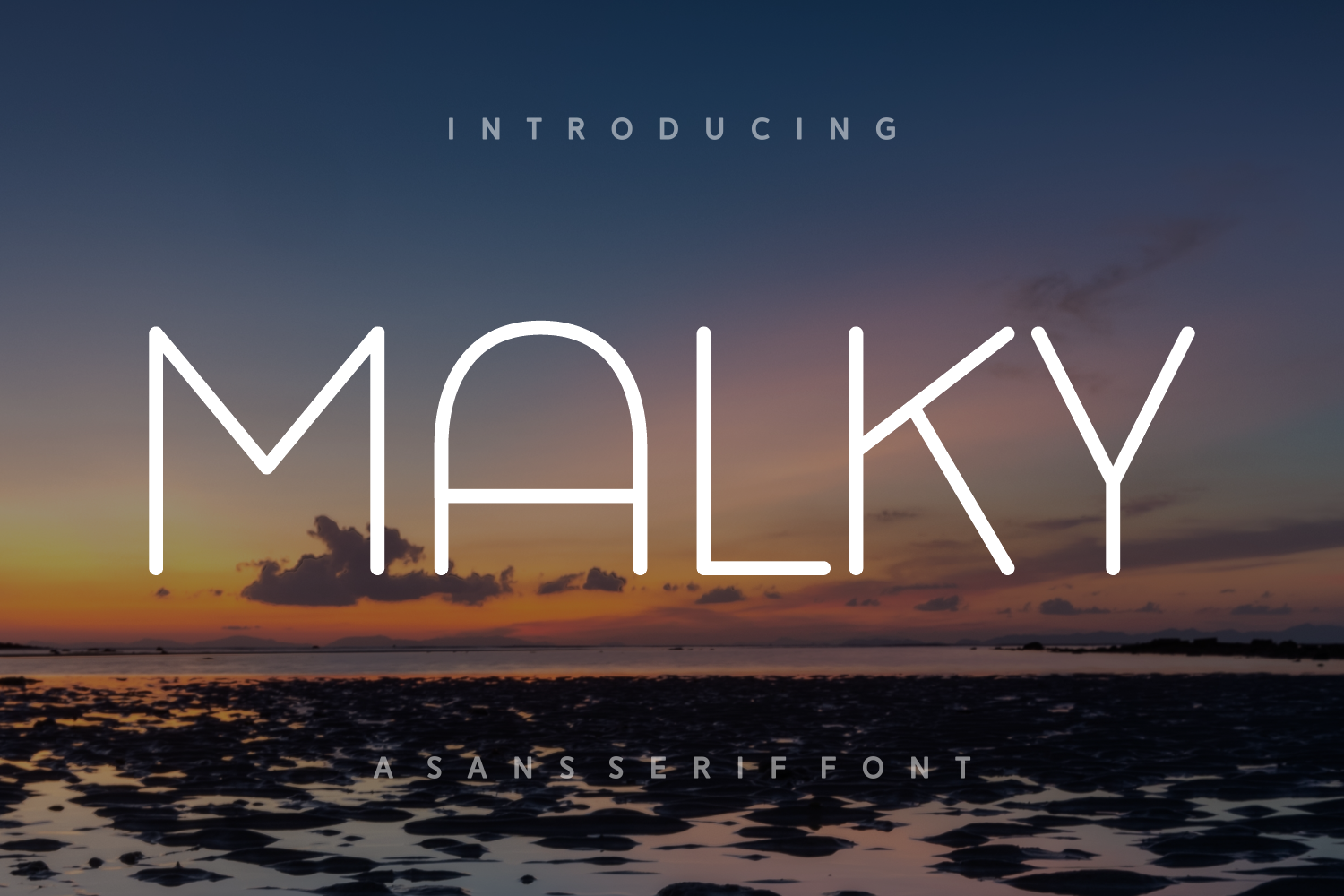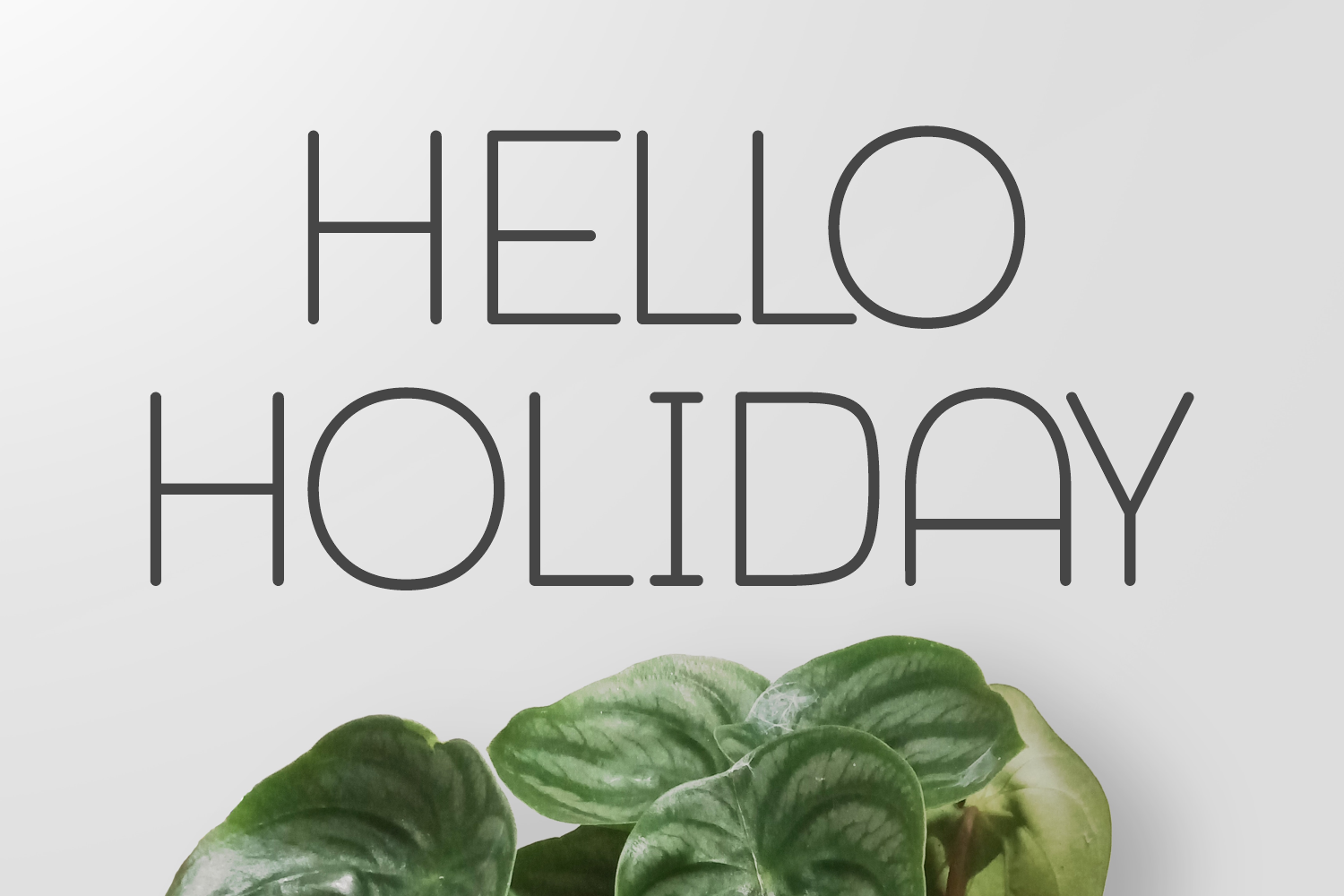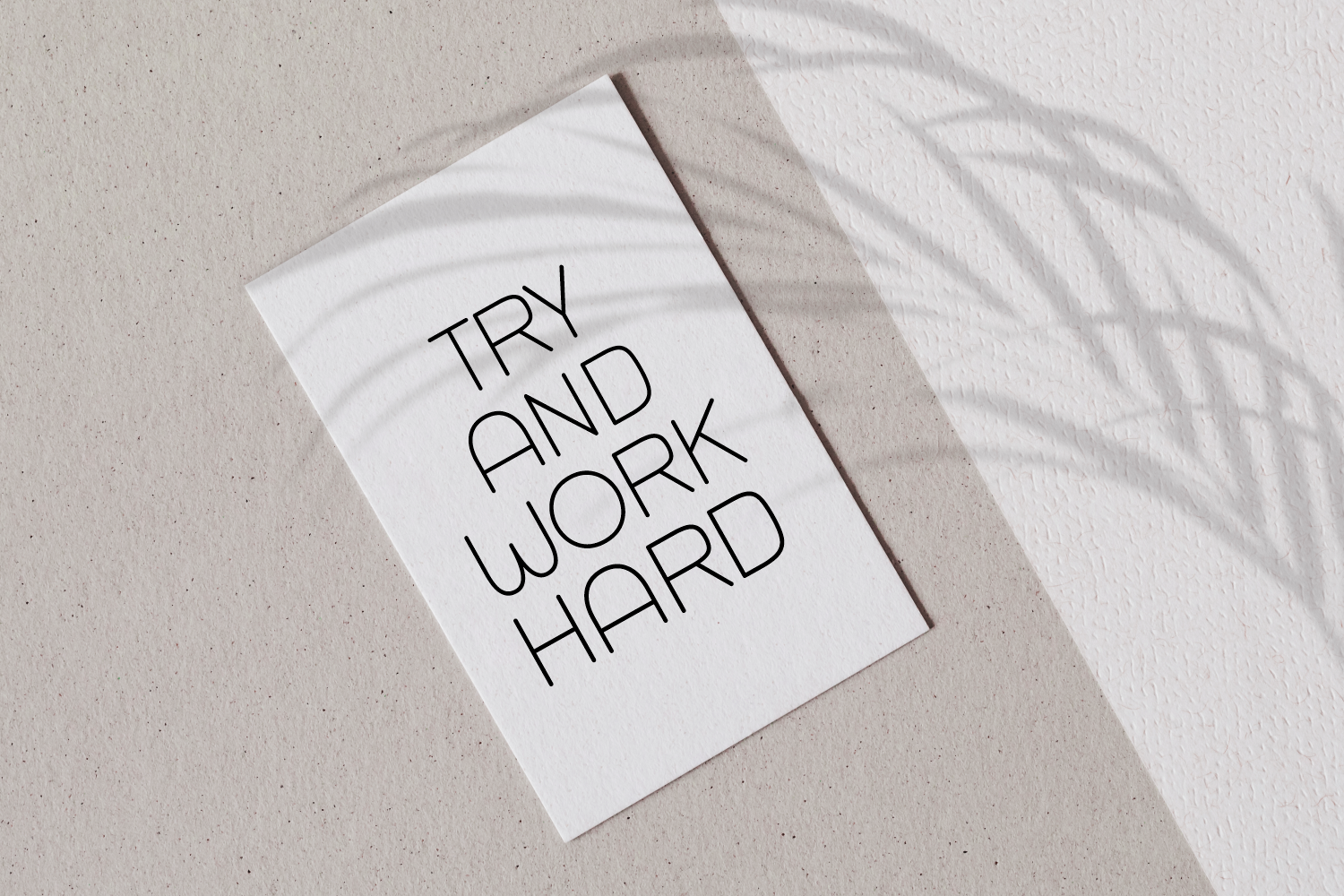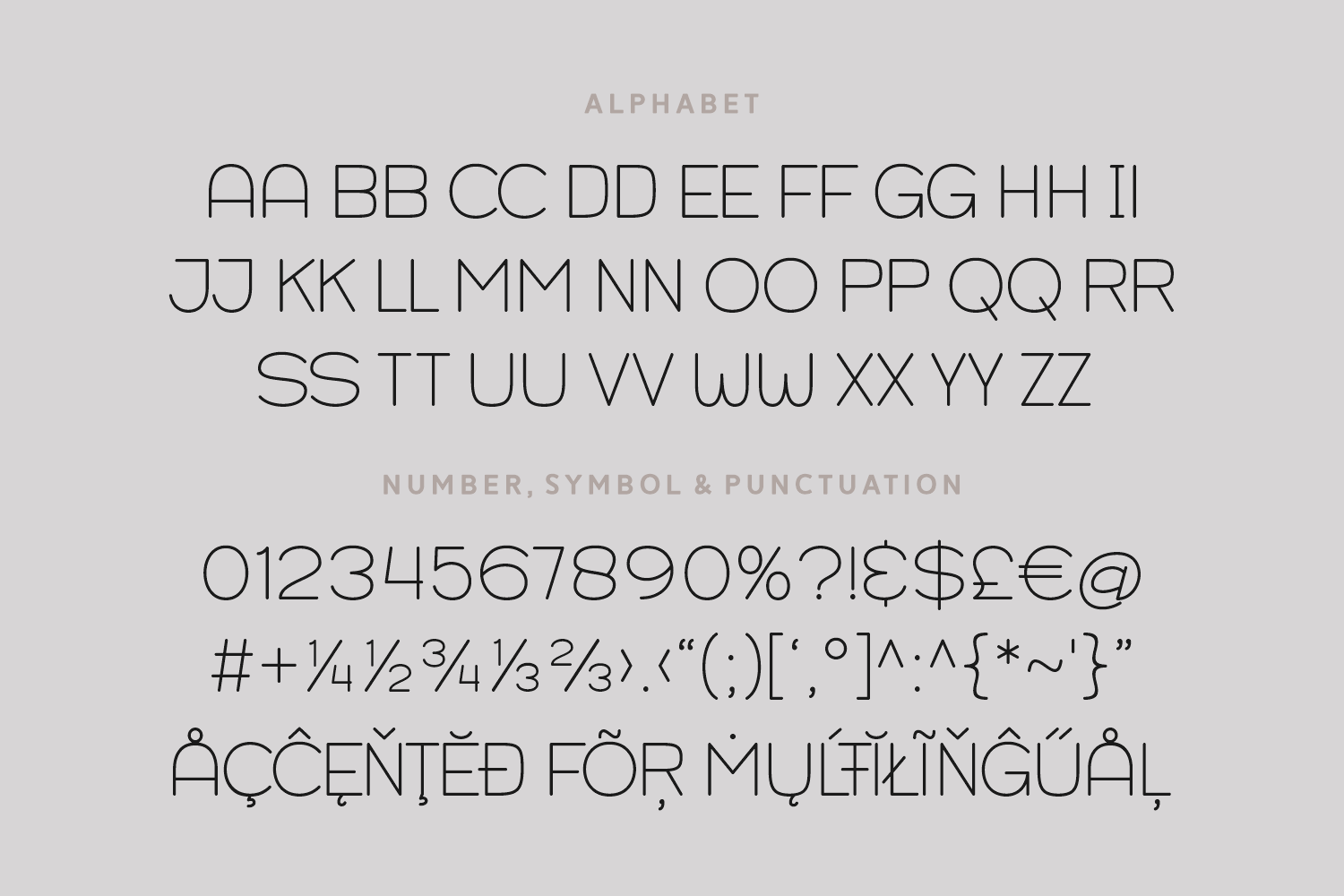
Malky is a sleek, modern sans-serif font that combines minimalist geometry with a contemporary, high-fashion aesthetic. Its rounded terminals and smooth lines give it a friendly yet futuristic feel, making it perfect for both branding and editorial use.